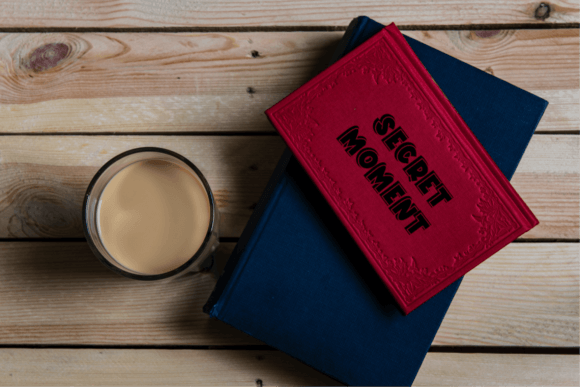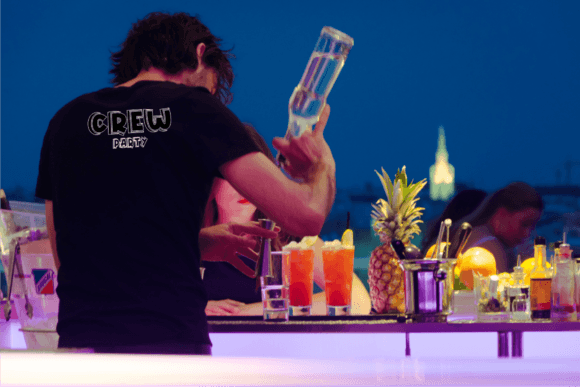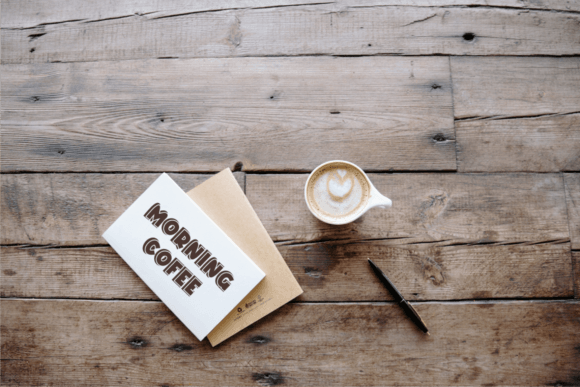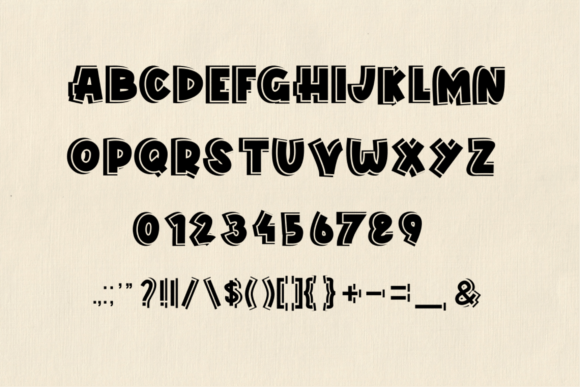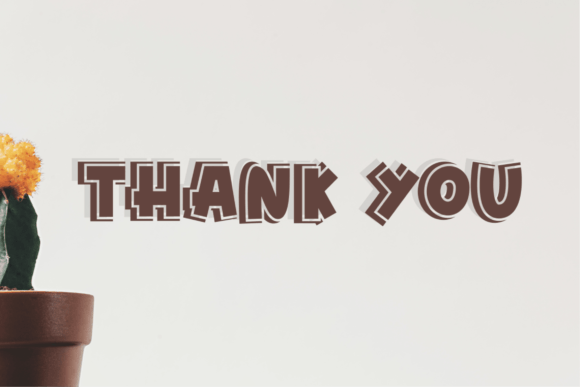
Introduction to Rosohati Ornament Font
Rosohati Ornament is a bold and authentic display font.
The font is suitable for any branding project like logo, t-shirt printing, e-sport, and many more It is sure to look outstanding in a wide range of contexts.
Key Features of Rosohati Ornament Font